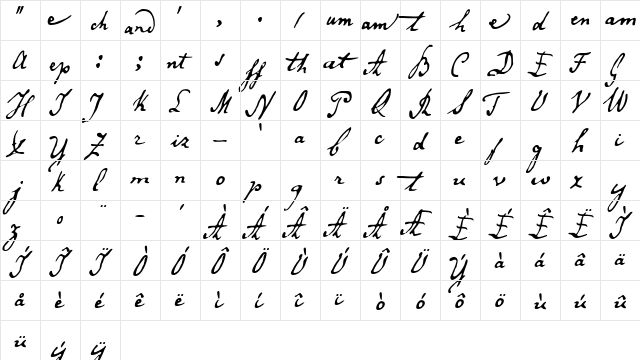
SecretScrypt Regular
Design Context for SecretScrypt Typeface
SecretScrypt is a composed and adaptable typeface that performs quietly and consistently across a wide range of design contexts.
Pro Tip: Use SecretScrypt in both headline and body roles to test its range before committing to a single application.